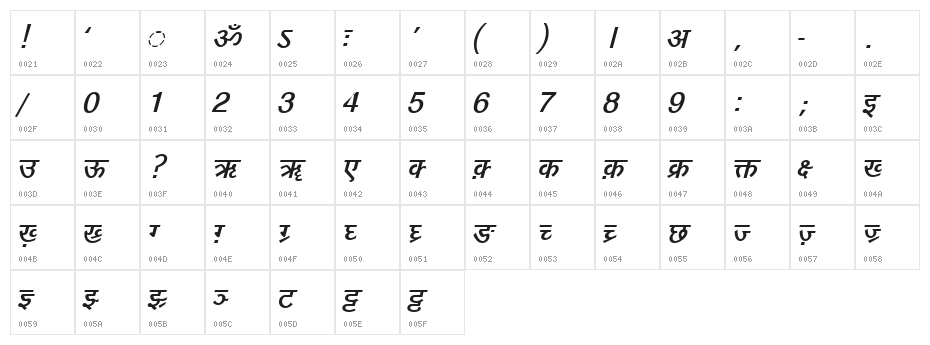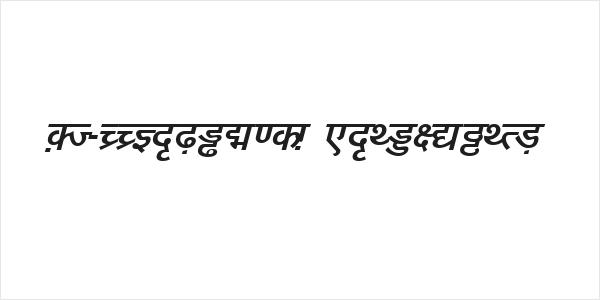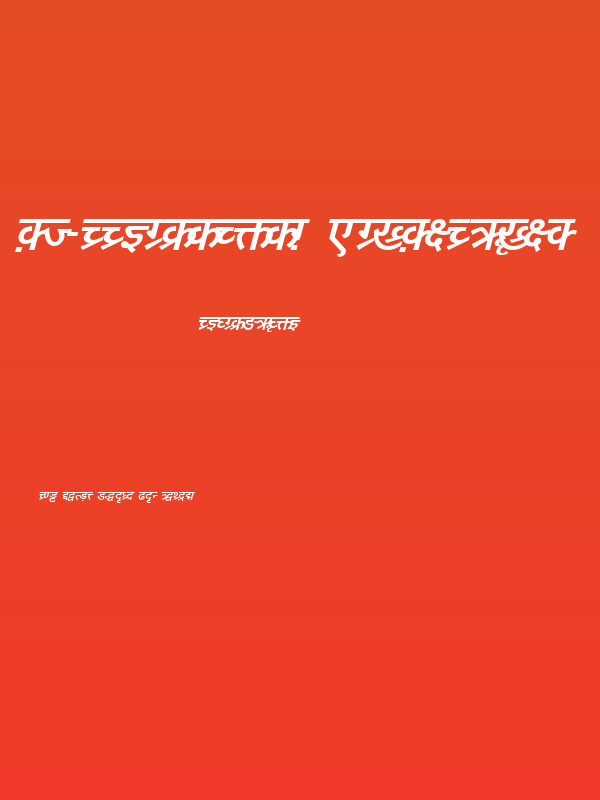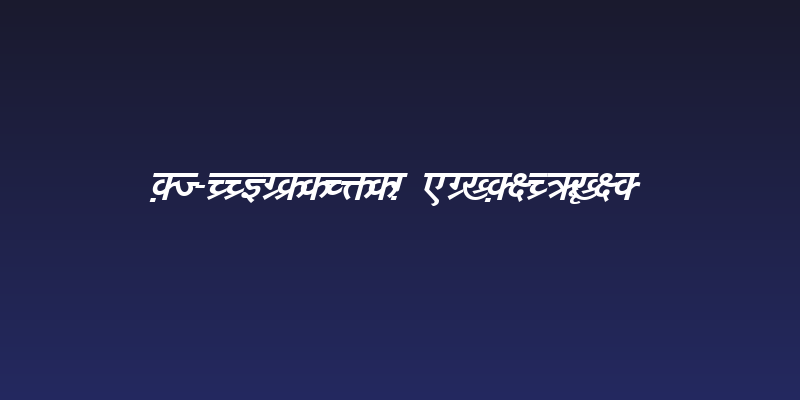
DV-TTYogeshEN BoldItalic Font
DV-TTYogeshEN BoldItalic Description
This font features a bold and italicized style with a distinct slant, giving it a dynamic and energetic appearance. The characters are well-defined with a consistent stroke width, contributing to its boldness. The italic nature adds a sense of motion and fluidity, making it suitable for attention-grabbing designs. The numerals are clear and easy to read, maintaining the same bold and italic characteristics. Special characters are included, providing versatility for various uses. The overall design is modern and impactful, ideal for making statements in design projects.